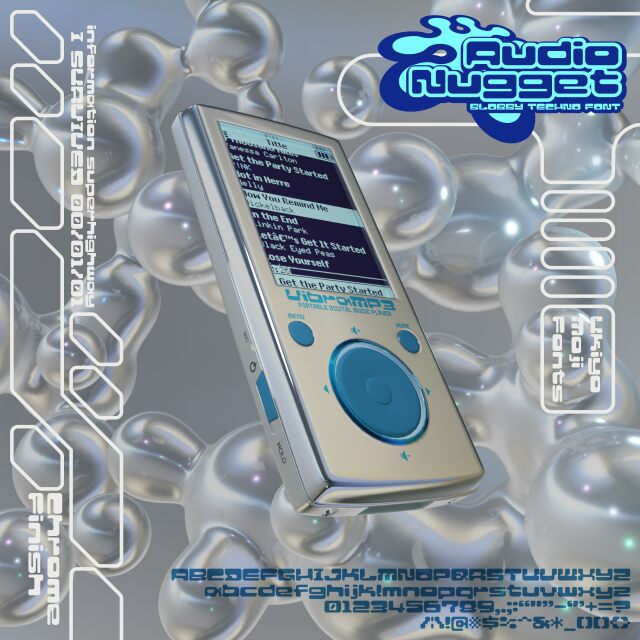
Audio Nugget Regular
Audio Nugget, a creation by UkiyoMoji Fonts, boasts a captivating techno-inspired aesthetic. This bold, expanded display font exudes a distinct Y2K-influenced blobby square style, evoking a sense of futuristic charm and digital-age nostalgia. Its unique form and expressive personality make it a standout choice for various design applications.
Versatile and eye-catching, Audio Nugget lends itself well to headlines, titles, and attention-grabbing accents. Its striking presence can elevate branding, product packaging, and digital interfaces, seamlessly blending retro flair with a contemporary edge. Whether utilized in web design, print media, or multimedia projects, this font offers a captivating and memorable visual experience.